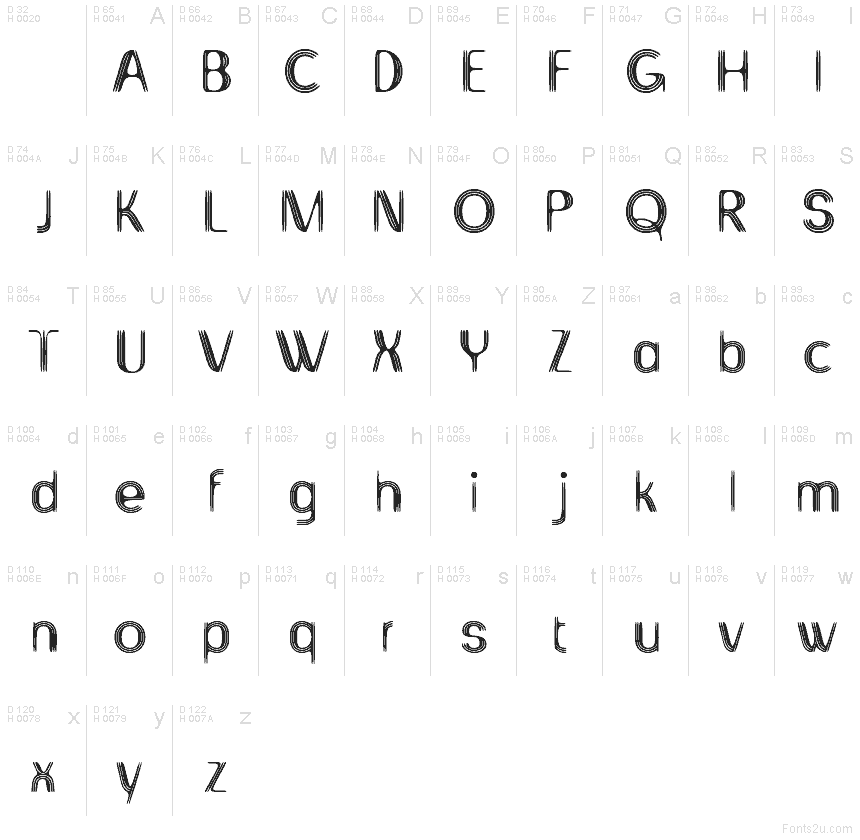
CSShaneDrawn-Regular Demo
CS Shane Drawn font by Craft Supply Co. is a free groovy display font built around hypnotic multi-line contours. Each letter stacks three inky strokes with subtle wobble, creating a hand-drawn rhythm that feels retro yet fresh. As part of the CS Shane family, it swaps flat fills for concentric outlines, giving headlines airy volume without losing punch.
Using CS Shane Drawn, you get showy texture that pops on posters, album art, festival flyers, packaging, social promos, and bold storefront signage. The generous spacing and ringed lines hold up beautifully at large sizes. Pair this free font with a simple geometric sans for body copy, and let CS Shane Drawn carry the headline at 72pt and up.